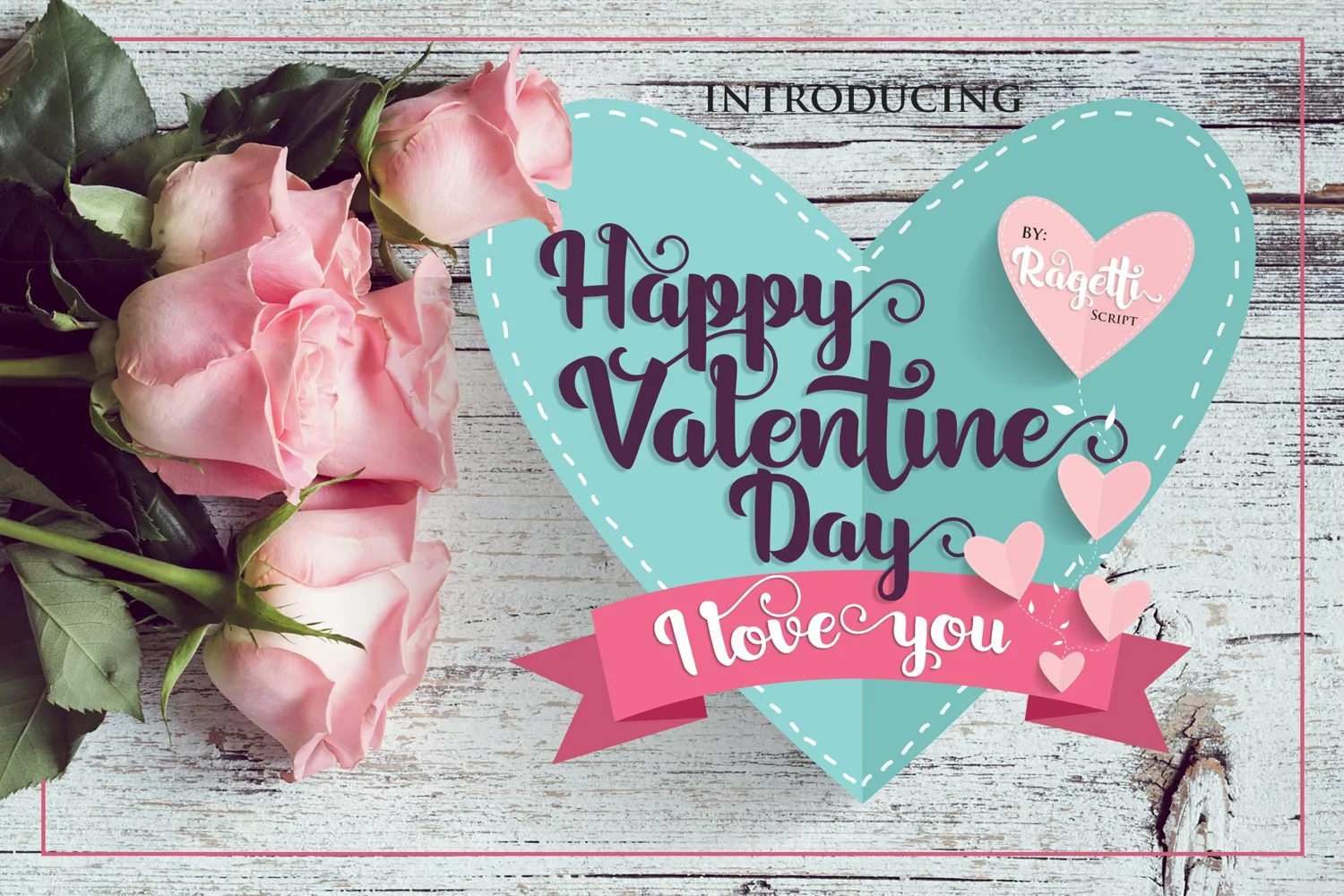
Ragetti Script Font is a handmade font based on calligraphy. Ragetti Script can be used for anything from promotional material and handwritten quotes, to product packaging, labels, logos, newsletters, posters, merchandise and branding projects. Ragetti Script Font supports and includes:
•    Standard Opentype
•    Contextual alternates
•    Stylistic alternate
•    Swash and Punctuation